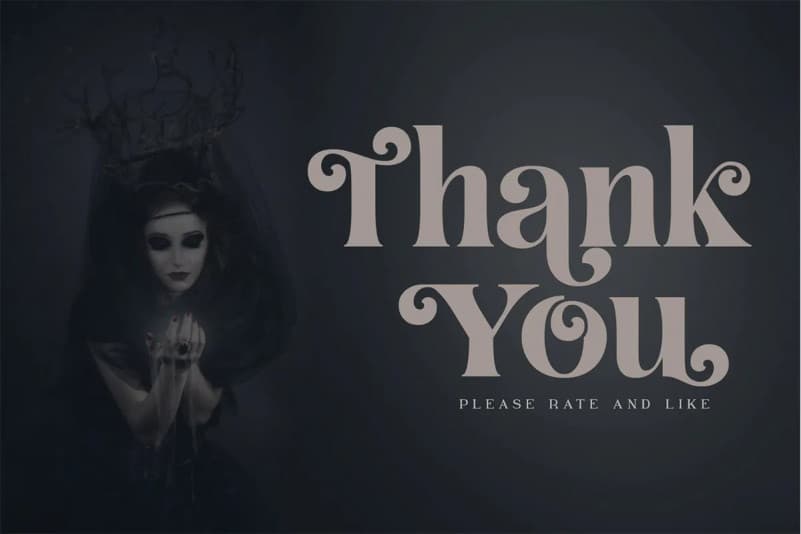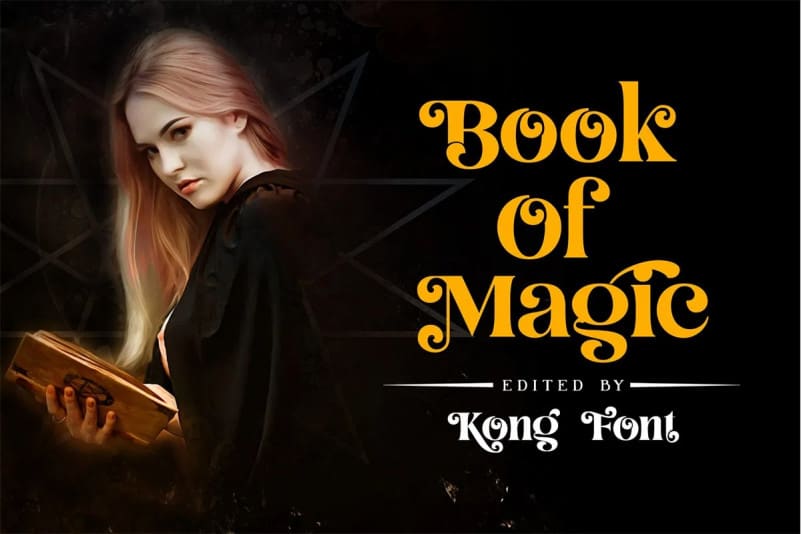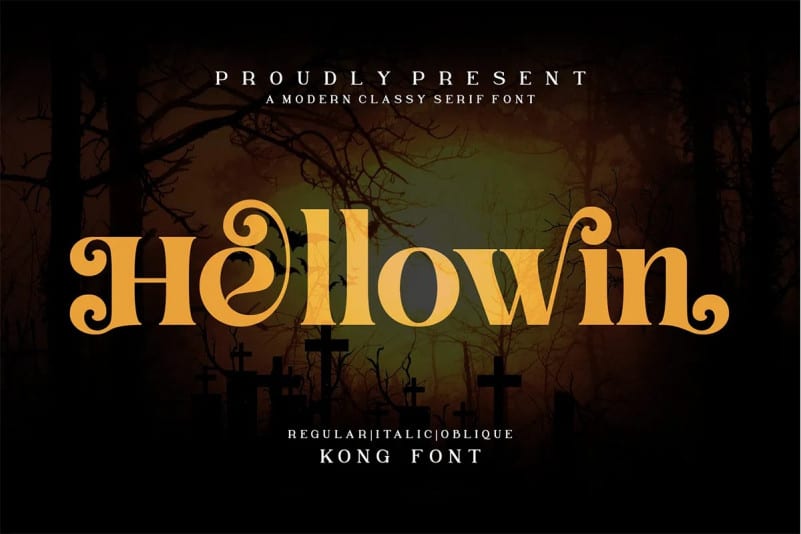
Hellowin Serif Font is a sans serif display font with a retro look. With over 100 ligatures, small caps, and swashes. This typeface is designed and shared by fontkong. Hellowin Serif Font is perfect for your up coming projects. Such as luxury logo and branding, classy editorial design, magazine, fashion promotional, boutique branding, stationery design, blog design, modern advertising design, card invitation, art quote, home decor, book/cover title, special events and any more.